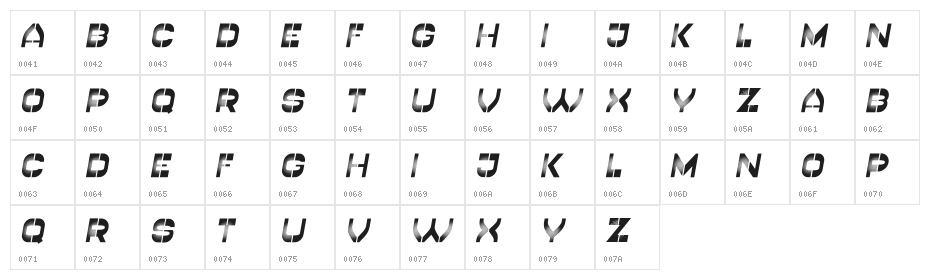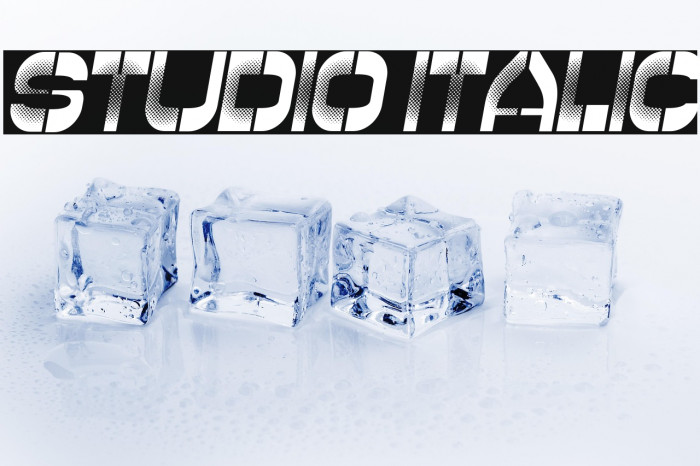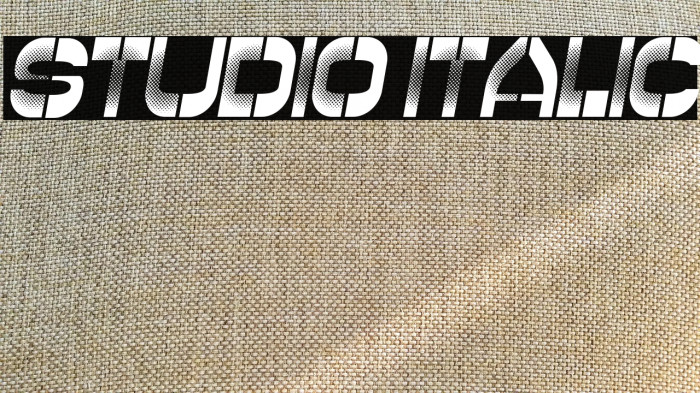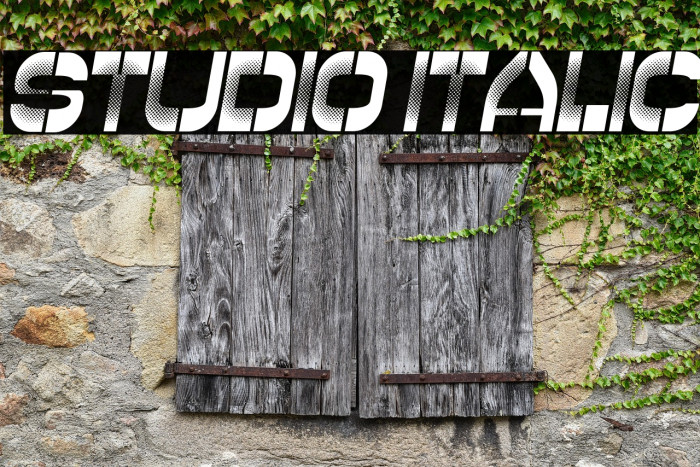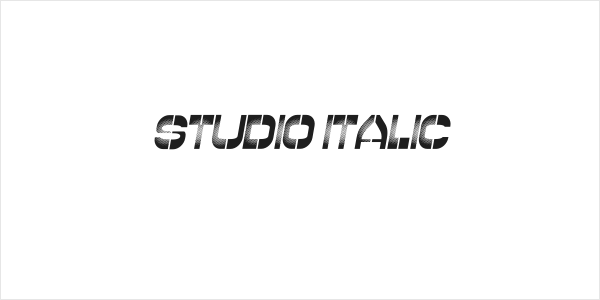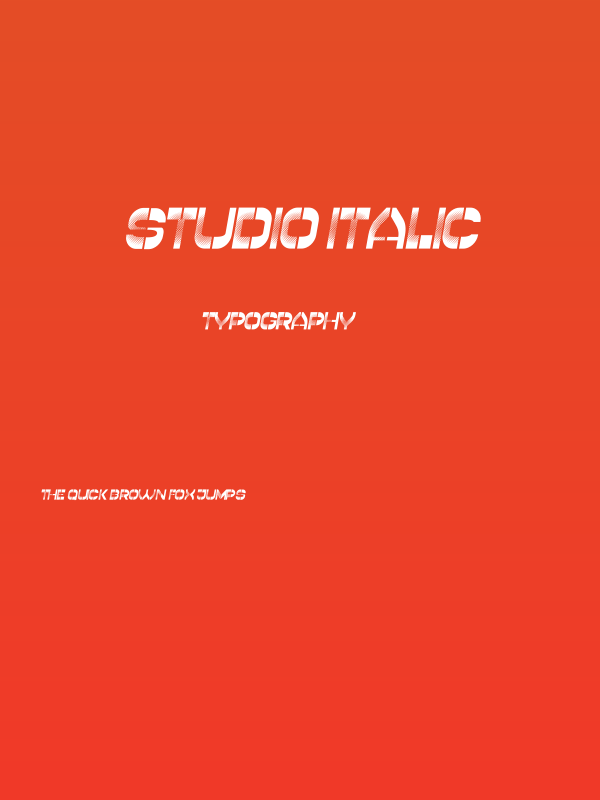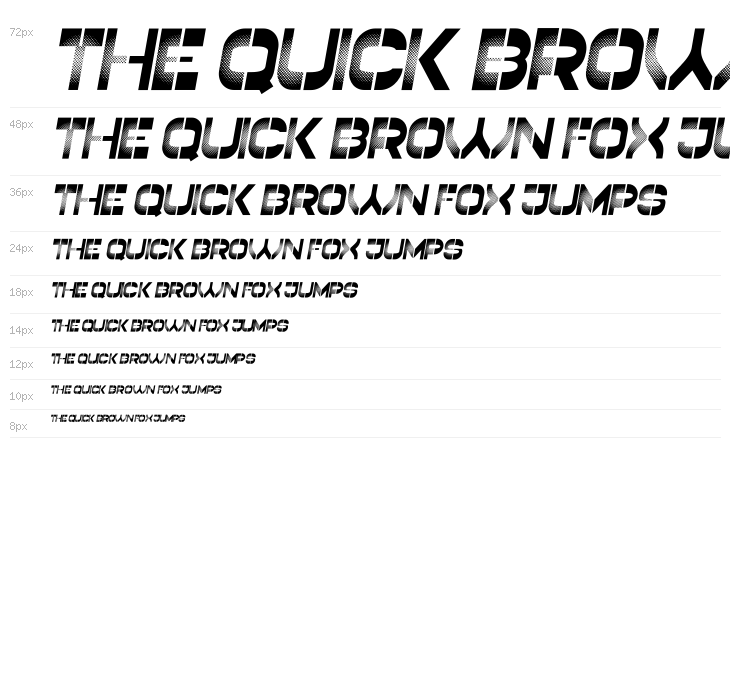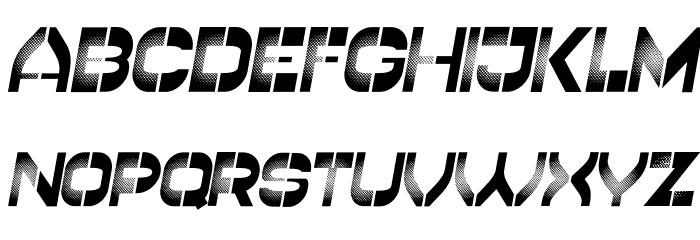
Studio Italic Font
Studio Italic Description
This font exhibits a bold and dynamic style with a distinct italic slant, giving it a sense of motion and energy. The characters are designed with a unique pattern of diagonal lines that create a textured, gradient-like effect, adding depth and visual interest. The uppercase letters are prominent and assertive, making them ideal for attention-grabbing headlines or titles. The overall design is modern and futuristic, with a strong emphasis on geometric shapes and sharp angles. This font is particularly well-suited for projects that require a contemporary and edgy look.
| Proposed Projects | Ideal for branding, posters, album covers, and any project needing a modern, edgy aesthetic. |